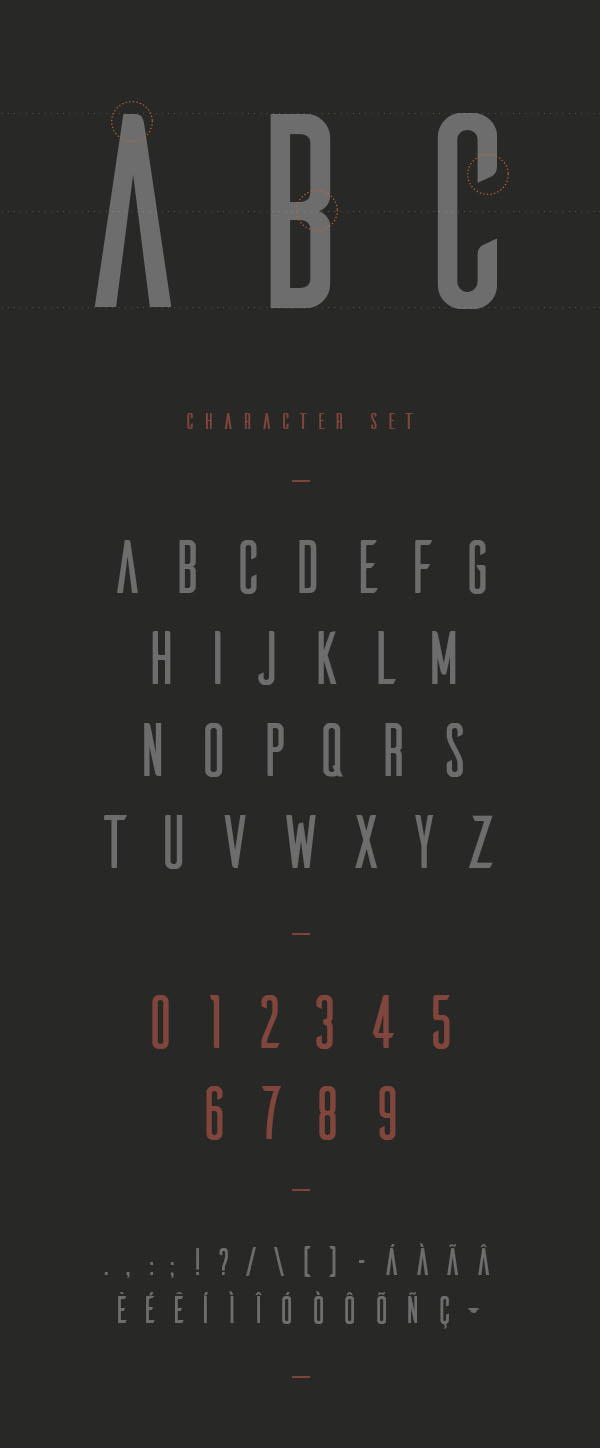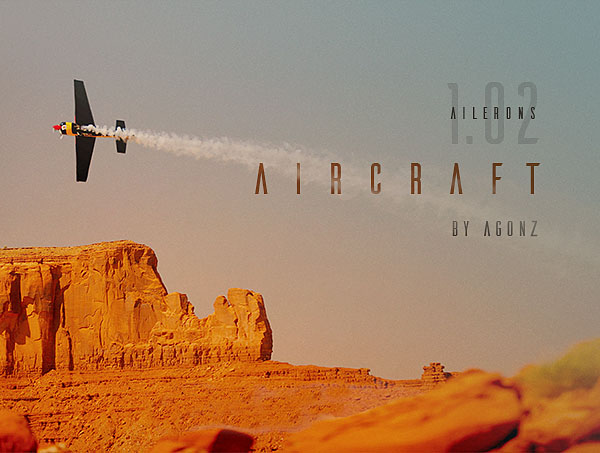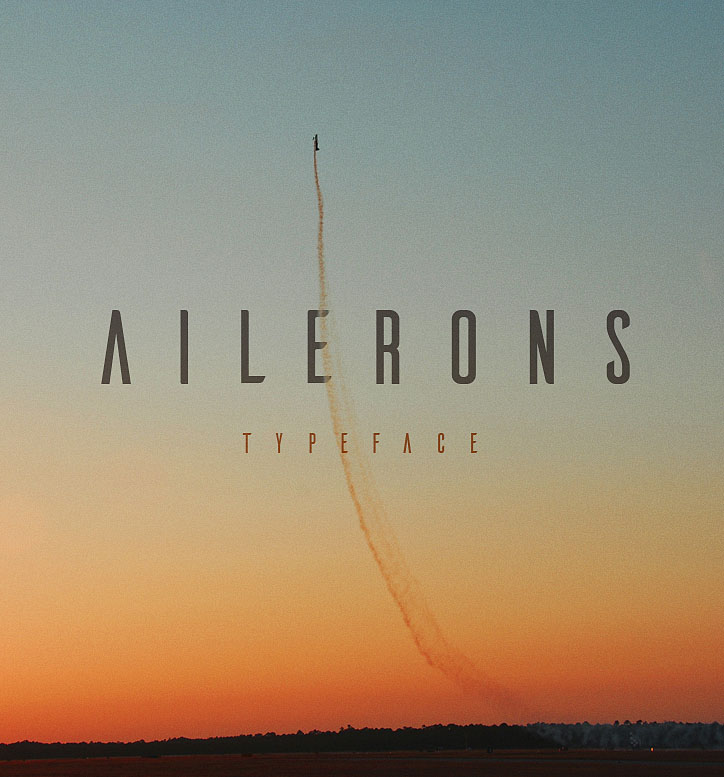
Ailerons – Free Modern Font
This clean & futuristic style custom font is from Adilson Gonzales de Oliveira Junior. Download and enjoy 😉 Free only for personal use!